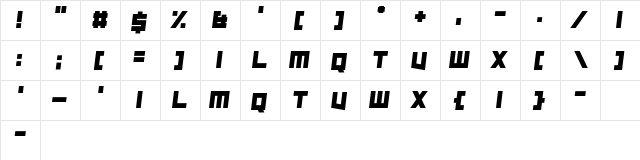
Nau Sea Regular
| Designer | Allison James |
Design Context for Nau Sea Typeface
Nau Sea is a composed and adaptable typeface that performs quietly and consistently across a wide range of design contexts.